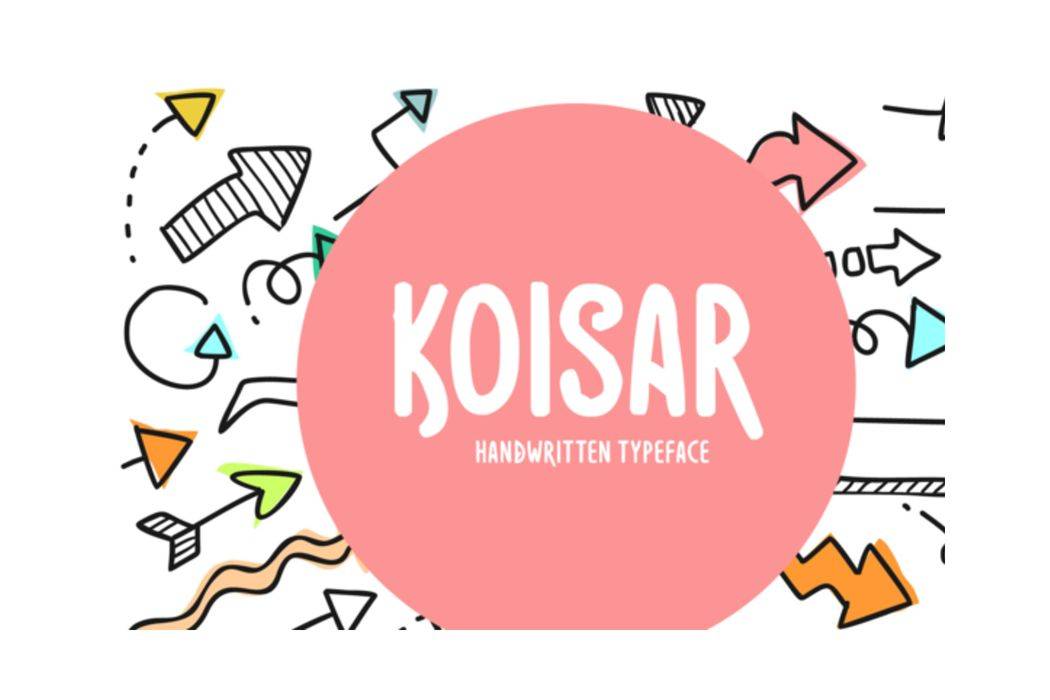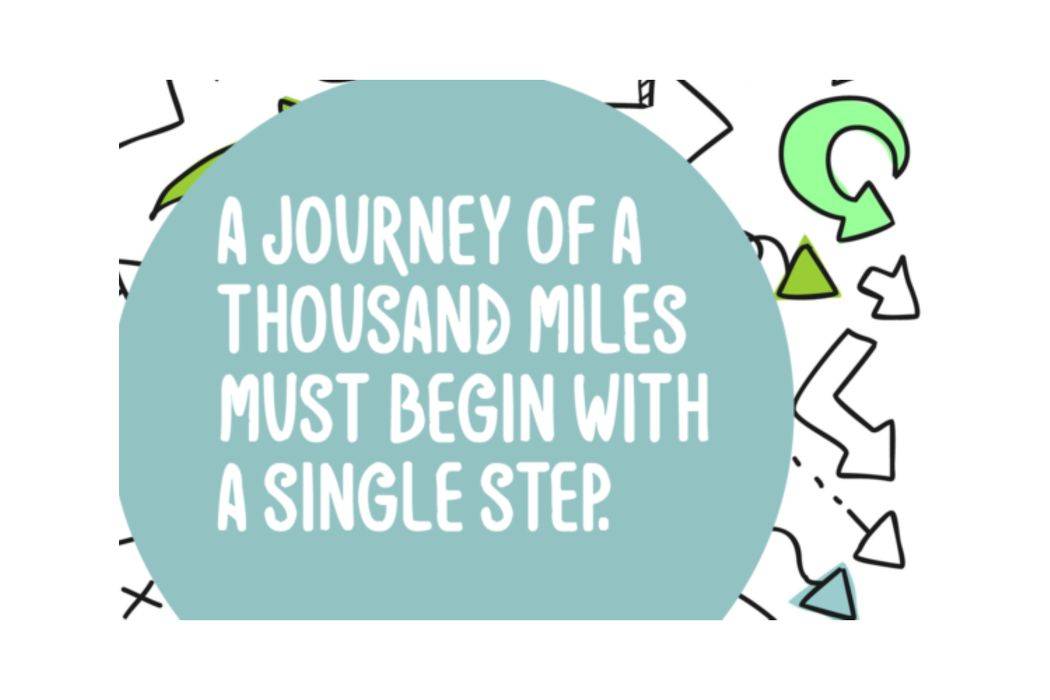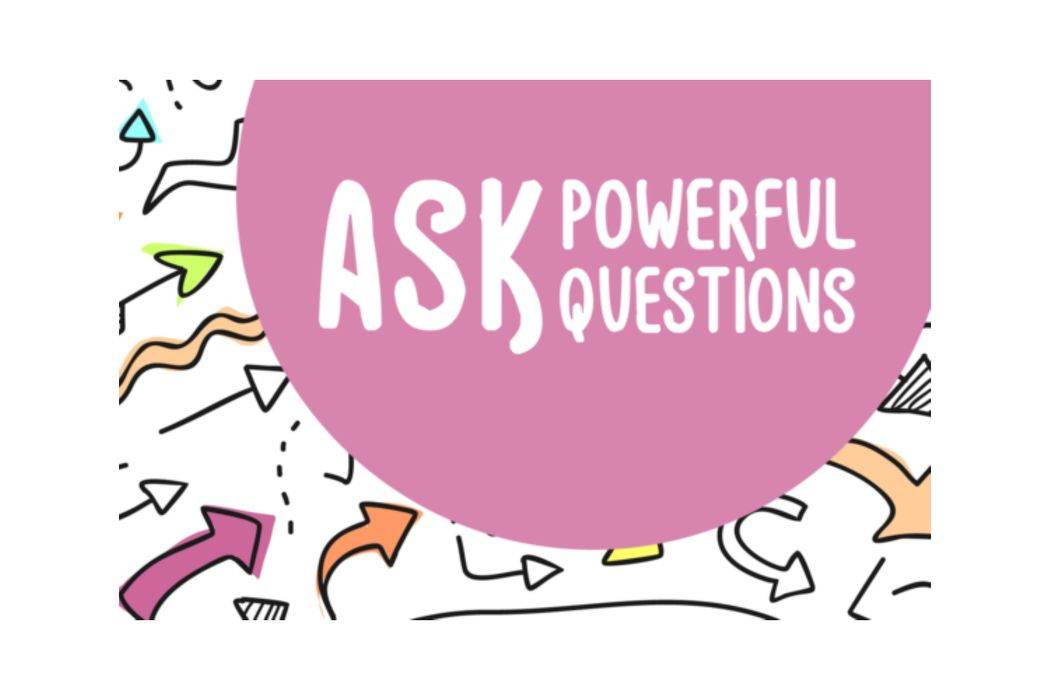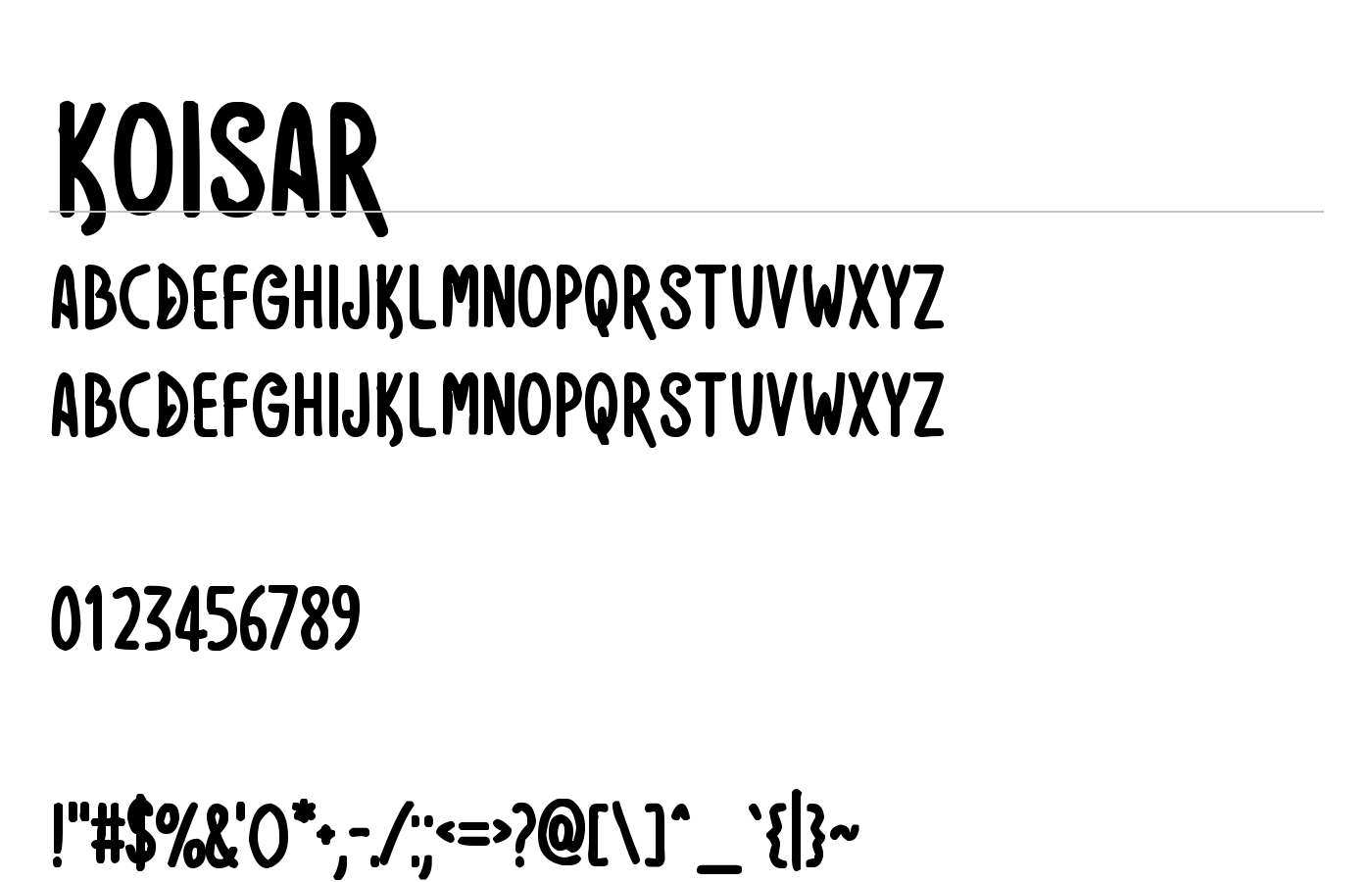
Koisar is a playful and casual sans serif font with a hand-drawn feel and slightly irregular, rounded letterforms that give it a warm, approachable personality. Its upright structure, moderate stroke weight, and clear readability make it ideal for informal branding, children's designs, posters, and creative projects where a friendly and unique style is desired. This font works well in headlines and display settings, adding charm and character without sacrificing clarity.
Koisar Font
About Koisar Font